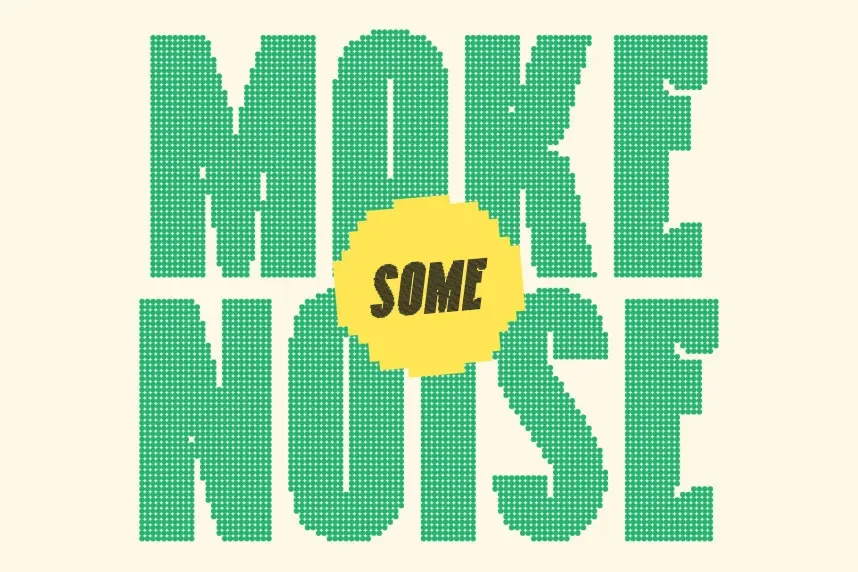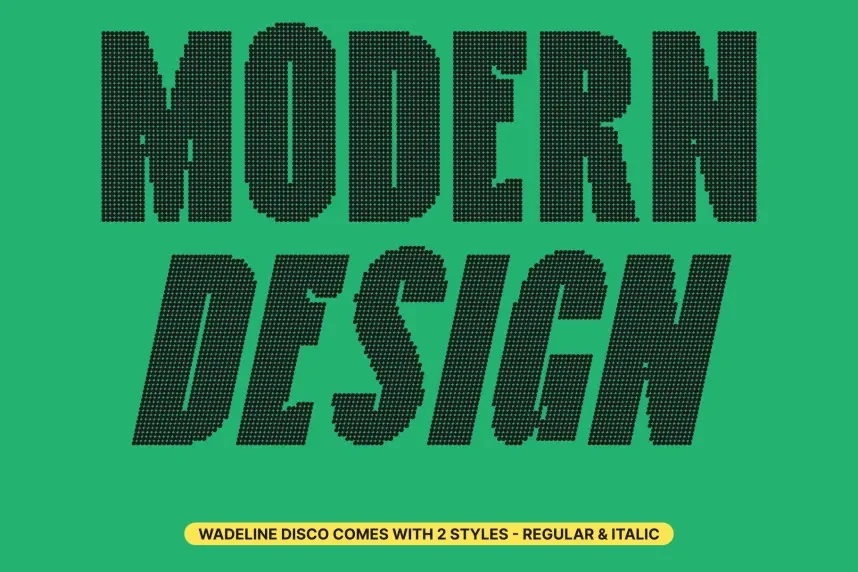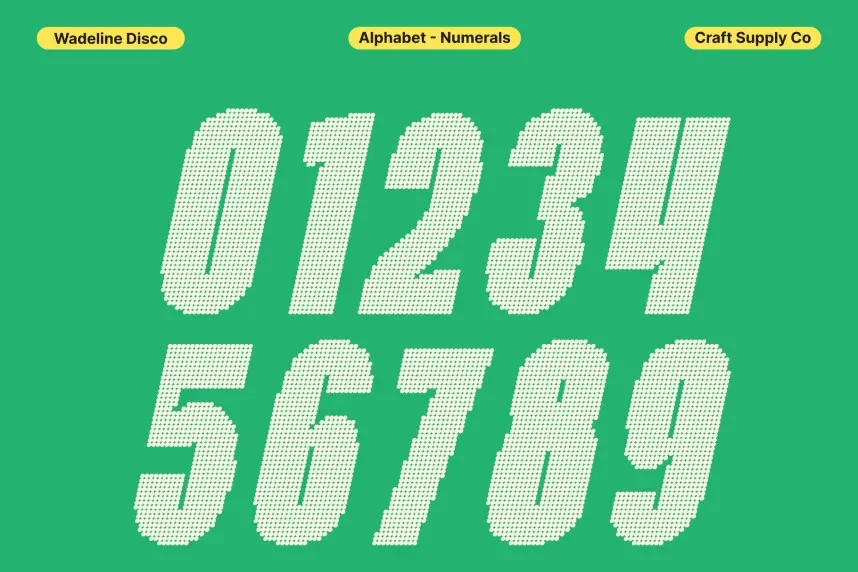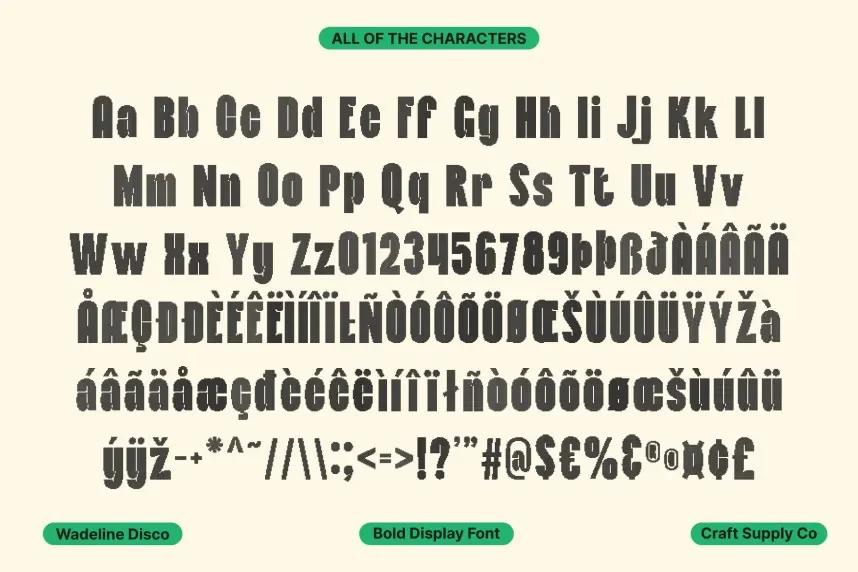
Wadeline Disco Font is a display typeface developed for designers who need bold letterforms that remain readable in fast-scrolling digital spaces. It supports visual consistency in branding where decorative fonts often fail to scale properly.
This font uses wide proportions, rounded curves, and low contrast strokes. The letterforms feel structured and stable, which improves legibility in logos and large-format text. Wadeline Disco Font focuses on uppercase display use, keeping shapes clear and evenly spaced.